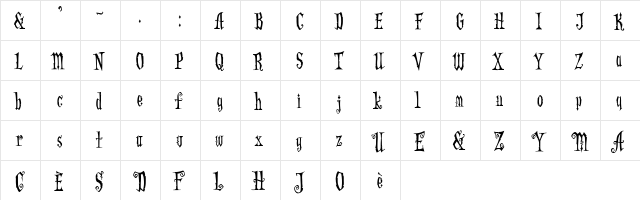
Addams Regular
Design Context for Addams Typeface
Addams is a composed and adaptable typeface that performs quietly and consistently across a wide range of design contexts.
Pro Tip: Pair Addams with a font of contrasting weight or personality to build a more expressive typographic hierarchy.